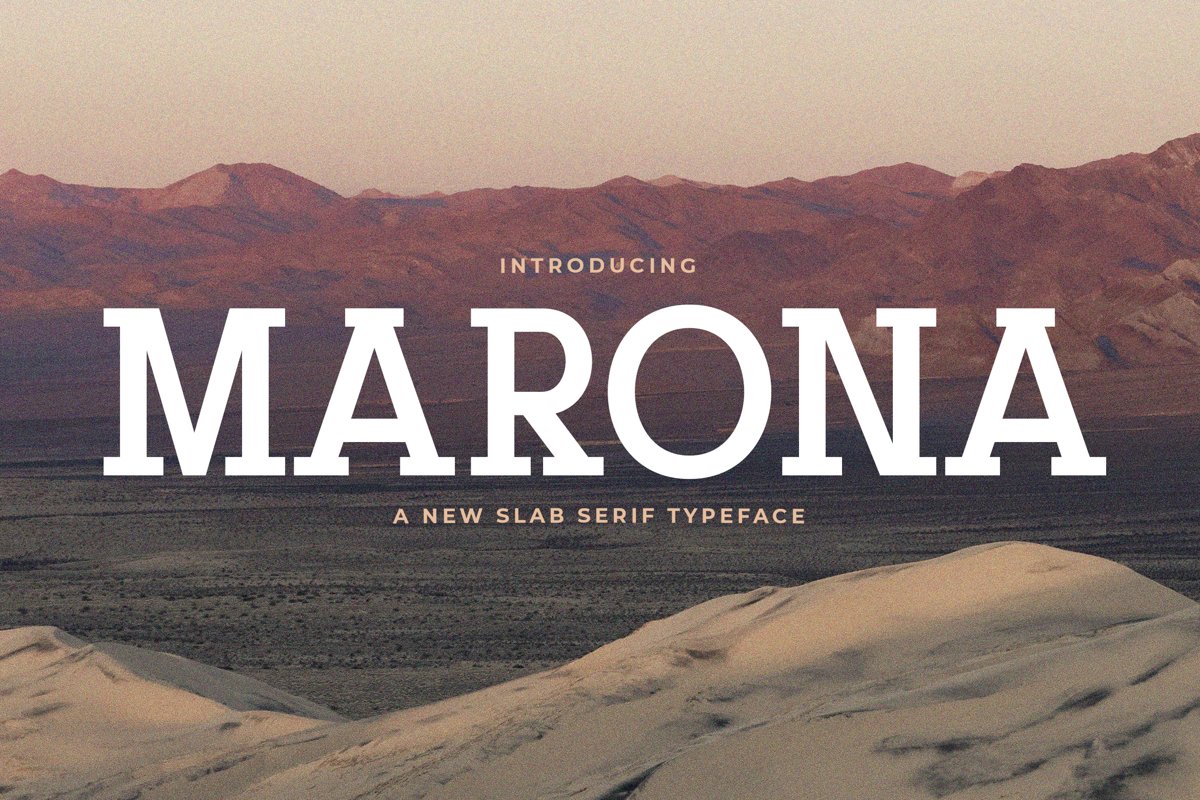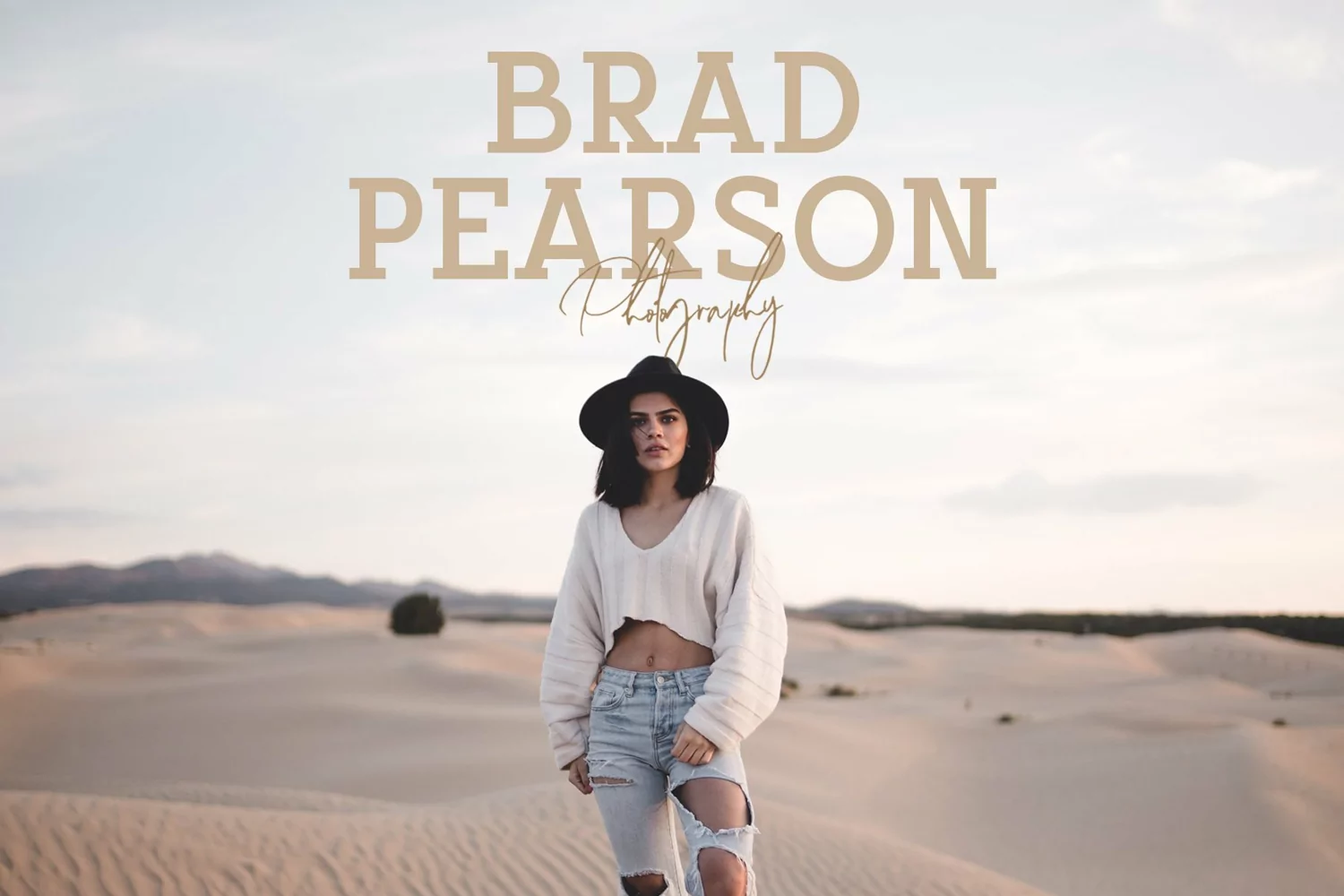
Marona is a slab serif typeface. Perfect for display, poster, quotes, crafting needs, florist needs, wedding needs, business card, signature, packaging, merchandise, branding, logo, logotype, header, tittle, and many more.